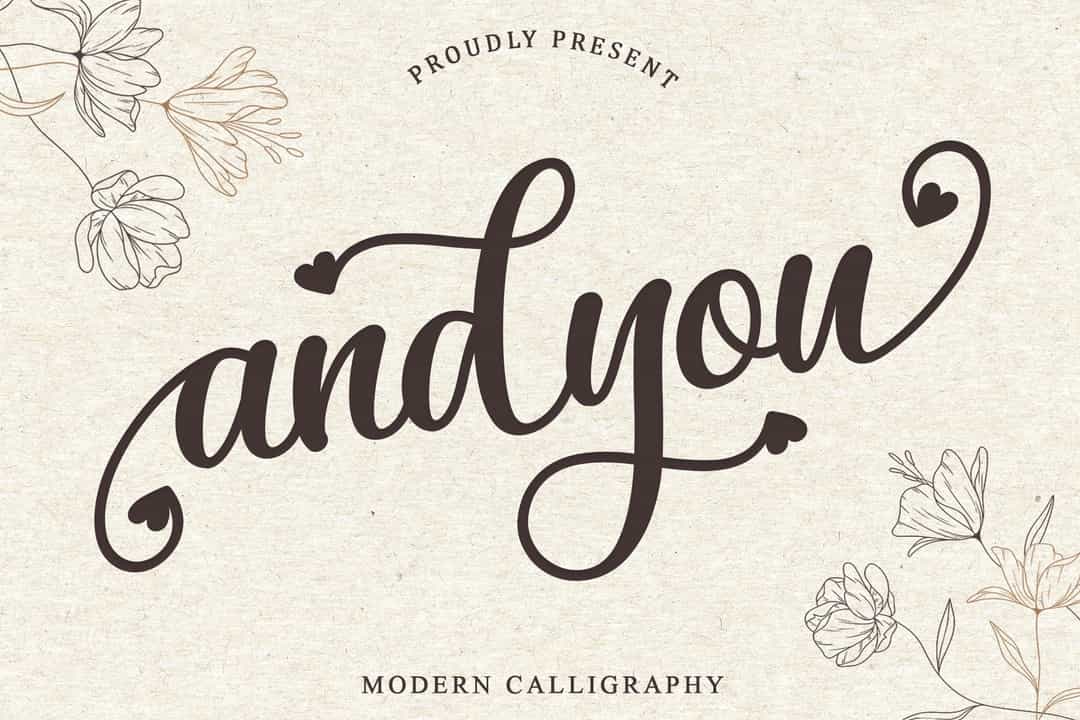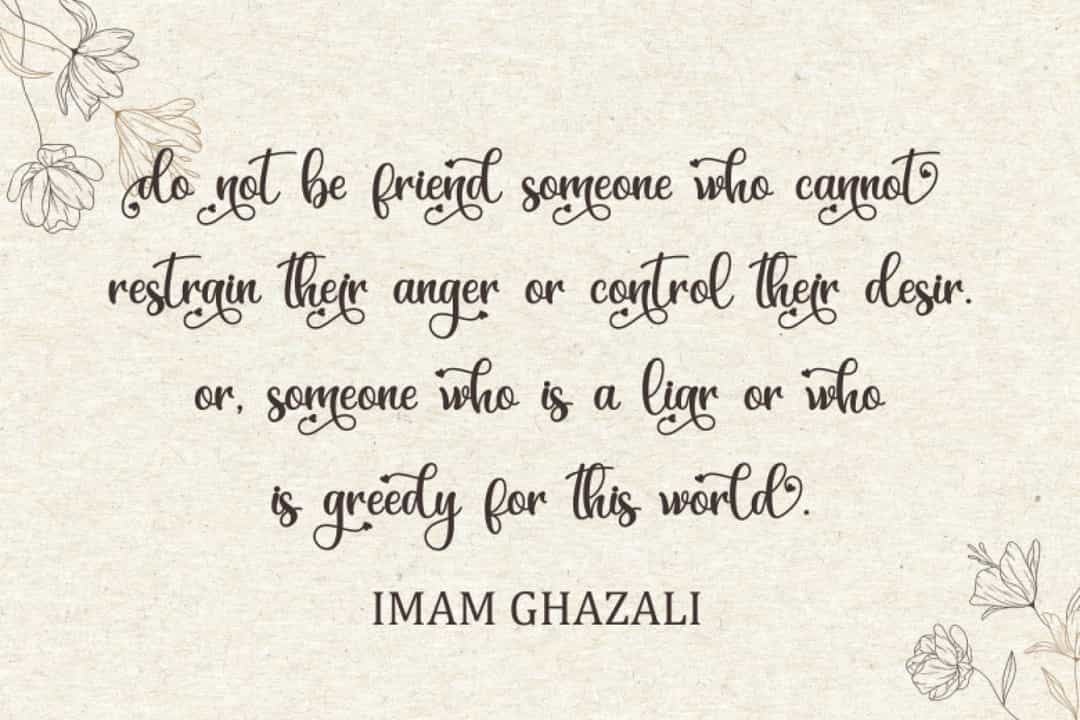
Andyou Font is a stunning and delicate typeface, exuding elegance and sophistication. This font was specifically created for people seeking fresh yet beautiful designs. Additionally, PUA encoding gives access to all Swashes and Glyphs easily!